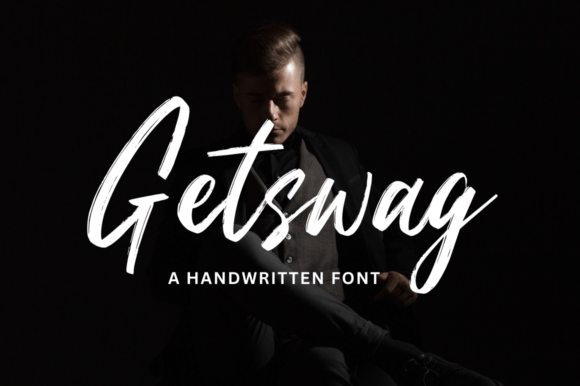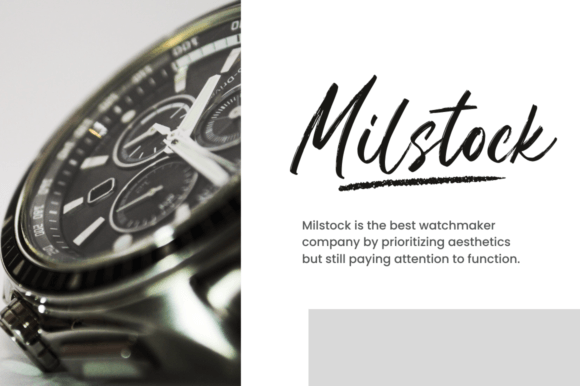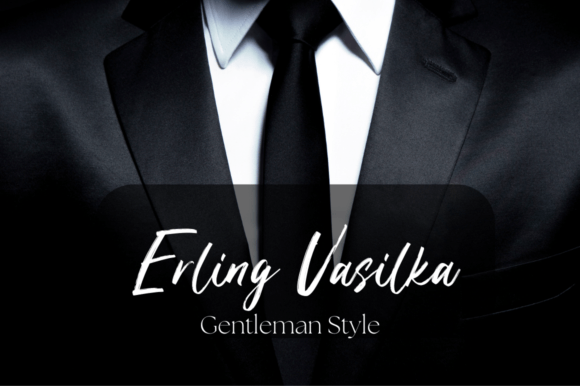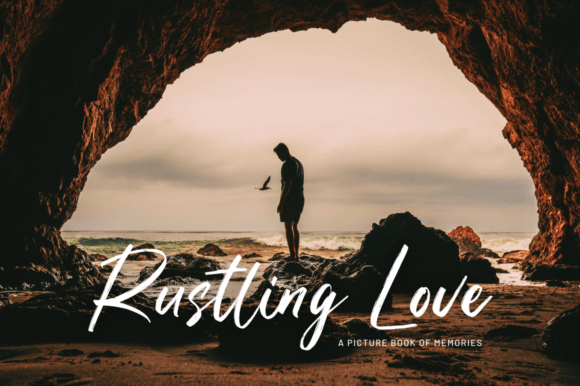
Getswag Font: A Bold Handwritten Brush Font for Modern Logo Design
About the Getswag Font
Step up your design game with Getswag Font, a font that exudes confidence and style. Introducing “Getswag,” a handwritten brush font that brings an authentic, handcrafted feel to your designs. With its dynamic strokes and spontaneous flair, this font captures the energy of brush lettering. Perfect for projects that seek a casual and expressive vibe, such as posters, logos, or merchandise. “Getswag” adds a touch of personality and character to your text, ensuring it stands out with a stylish and contemporary edge.
Getswag excels in headlines, short text blocks, and branding applications where a bold, expressive personality is desired. It’s ideal for projects targeting a younger demographic or those with a casual, handcrafted aesthetic, such as apparel brands, music festivals, or food packaging. Avoid using Getswag for body text or lengthy paragraphs; its informal style and variable stroke widths compromise readability in extended use.
Pair Getswag with a clean sans-serif like Open Sans for a balanced contrast, allowing Getswag to maintain its visual impact while ensuring legibility. Alternatively, a classic serif like Playfair Display can add a touch of sophistication, creating a more refined yet still energetic feel. For a playful approach, consider pairing with a geometric sans-serif, which offers a structured counterpoint to Getswag’s freeform strokes.
The font’s core personality is undeniably bold and playful, yet maintains a contemporary edge. Its handcrafted feel offers authenticity without sacrificing a modern aesthetic.
Getswag Font Usage Examples
Getswag Font Example